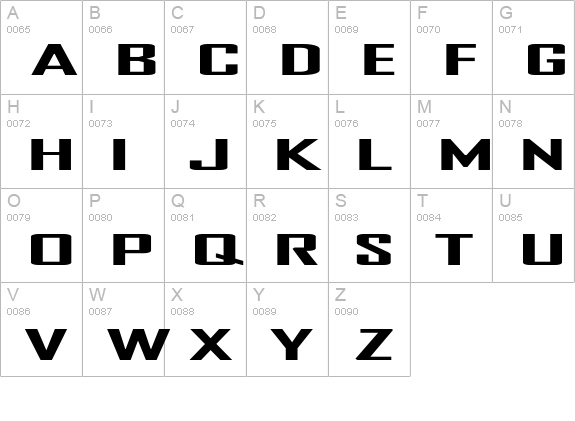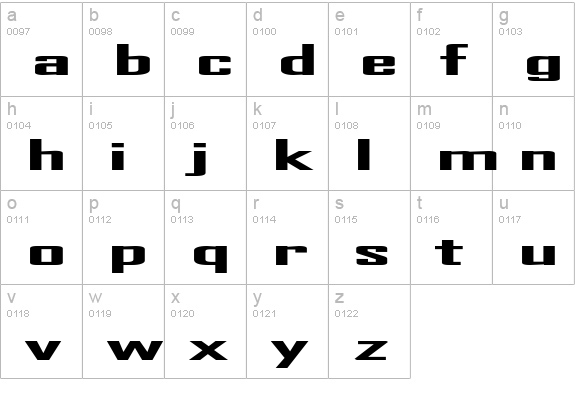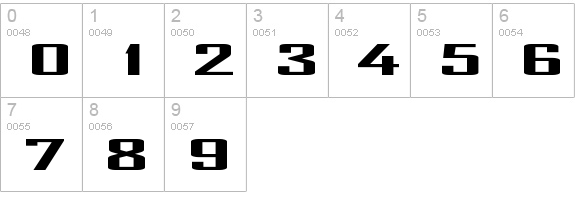
TR Heavy Font Details
TR Heavy is a heavy, high-impact variant in the TR typeface family \xE2\x80\x94 well suited to high-impact headlines, posters, and display advertising.
TR Heavy is a bold and impactful font that exudes strength and power. Its thick strokes and commanding presence make it ideal for headlines, posters, and other designs that demand attention. With its confident and assertive style, TR Heavy makes a bold statement. What sets TR Heavy apart from other fonts is that it is not only visually striking but also freely available to download at FontsMarket.com. Yes, you read that right - this impressive font can be yours for free! Whether you're a professional designer looking to add a touch of boldness to your projects or someone who simply appreciates the beauty of typography, TR Heavy is an excellent choice. With its versatility, TR Heavy can be used across a wide range of applications. From eye-catching advertisements to impactful social media posts, this font is sure to leave a lasting impression on your audience. Its strong and uncompromising appearance will help you convey your message with conviction and authority. Furthermore, TR Heavy is designed with precision and attention to detail, ensuring that every character is well-crafted and visually appealing. Its seamless legibility guarantees that your text will be easily readable, even at smaller sizes. This makes it an excellent choice for both print and digital designs. So why wait? Download TR Heavy today from FontsMarket.com and experience the power of this impressive font. Whether you're a professional designer or a typography enthusiast, TR Heavy will undoubtedly enhance your creative projects. Don't miss out on this opportunity to add a touch of boldness and professionalism to your work - get TR Heavy now and let your designs speak volumes!